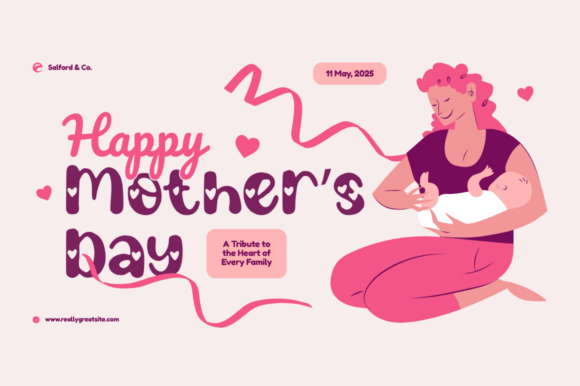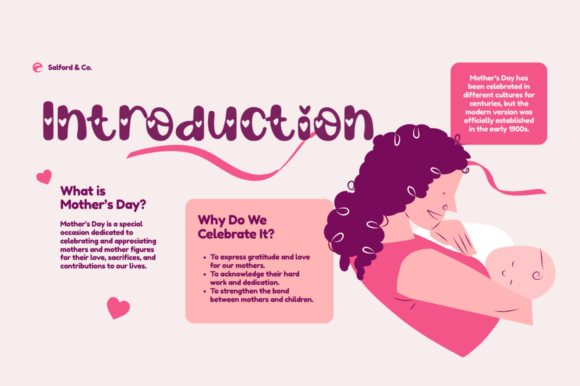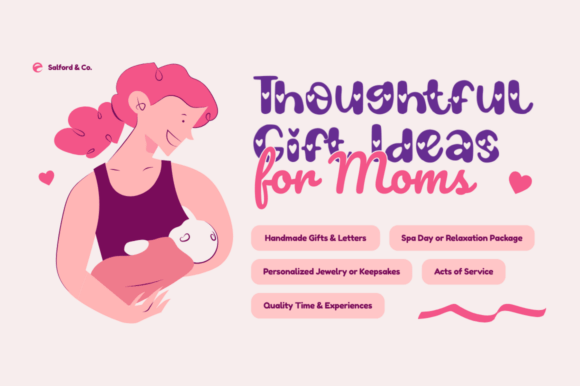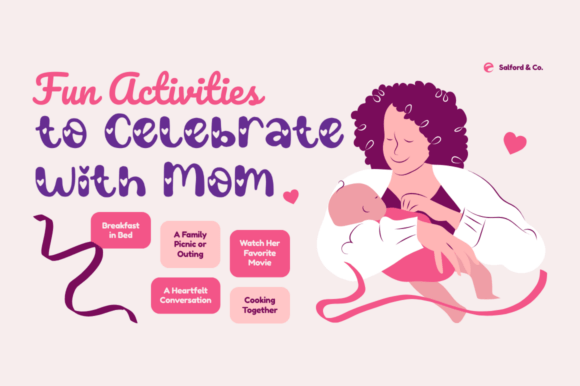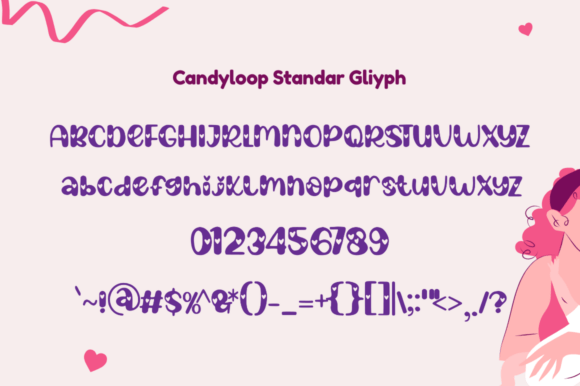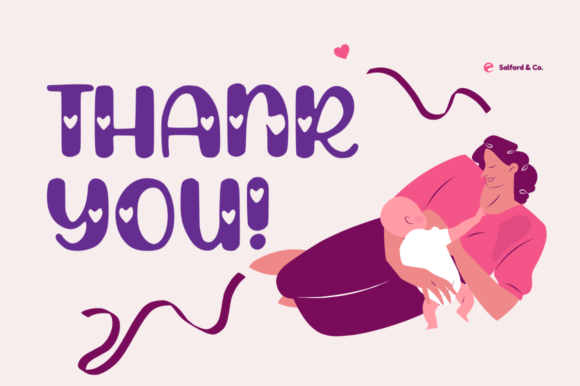
Candyloop Font: The Sweetest Addition to Your Design Projects
Are you looking for a font that adds a touch of whimsy and charm to your creative projects? Look no further than Candyloop Font, a playful and adorable display font that’s perfect for a variety of applications. With its heart-shaped cutouts and sweet design, this font is sure to capture the hearts of designers and crafters alike.
What is Candyloop Font?
Candyloop Font is a carefully crafted display font that’s filled with charm and sweetness. Each character is designed with heart-shaped cutouts, giving it a unique and playful look that’s perfect for a variety of creative projects. Whether you’re designing Valentine’s Day cards, baby shower invitations, or kids’ apparel, this font is sure to add a touch of cuteness and love to your work.
Features of Candyloop Font
- Playful and Adorable Design: Candyloop Font is designed to be playful and adorable, making it perfect for projects that require a touch of whimsy and charm.
- Heart-Shaped Cutouts: Each character in the font features heart-shaped cutouts, adding a unique and sweet touch to your designs.
- Perfect for Valentine’s Day and Love-Themed Projects: With its heart-shaped design, Candyloop Font is perfect for Valentine’s Day cards, love-themed crafts, and other projects that require a romantic touch.
- Suitable for Kids’ Apparel and Baby Shower Invitations: The font’s playful and adorable design makes it perfect for kids’ apparel, baby shower invitations, and other projects that require a touch of sweetness and innocence.
Uses of Candyloop Font
Candyloop Font is a versatile font that can be used in a variety of creative projects, including:
- Valentine’s Day Cards and Gifts: Add a touch of love and sweetness to your Valentine’s Day cards and gifts with Candyloop Font.
- Baby Shower Invitations: The font’s playful and adorable design makes it perfect for baby shower invitations and other baby-themed projects.
- Kids’ Apparel and Accessories: Use Candyloop Font to add a touch of cuteness and charm to kids’ apparel, accessories, and other projects.
- Love-Themed Crafts and DIY Projects: The font’s heart-shaped design makes it perfect for love-themed crafts and DIY projects, such as wedding decorations, anniversary gifts, and more.
Why Choose Candyloop Font?
There are many reasons why you should choose Candyloop Font for your creative projects. Here are a few:
- Unique and Playful Design: Candyloop Font features a unique and playful design that’s sure to capture the hearts of your audience.
- Easy to Read and Use: The font is easy to read and use, making it perfect for a variety of creative projects.
- Versatile and Flexible: Candyloop Font can be used in a variety of creative projects, from digital designs to print projects.
Candyloop Font is a playful and adorable display font that’s perfect for a variety of creative projects. With its heart-shaped cutouts and sweet design, this font is sure to capture the hearts of designers and crafters alike. Whether you’re designing Valentine’s Day cards, baby shower invitations, or kids’ apparel, Candyloop Font is the perfect choice. So why wait? Download Candyloop Font today and add a touch of cuteness and love to your creative projects!